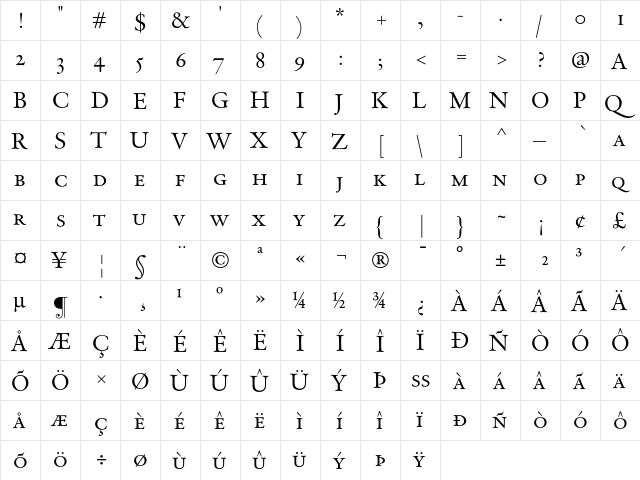
DTL VandenKeere D Caps Regular
Design Context for DTL VandenKeere Typeface
DTL VandenKeere offers clean, dependable letterforms without strong stylistic allegiance, making it a practical choice for designers who need flexibility.